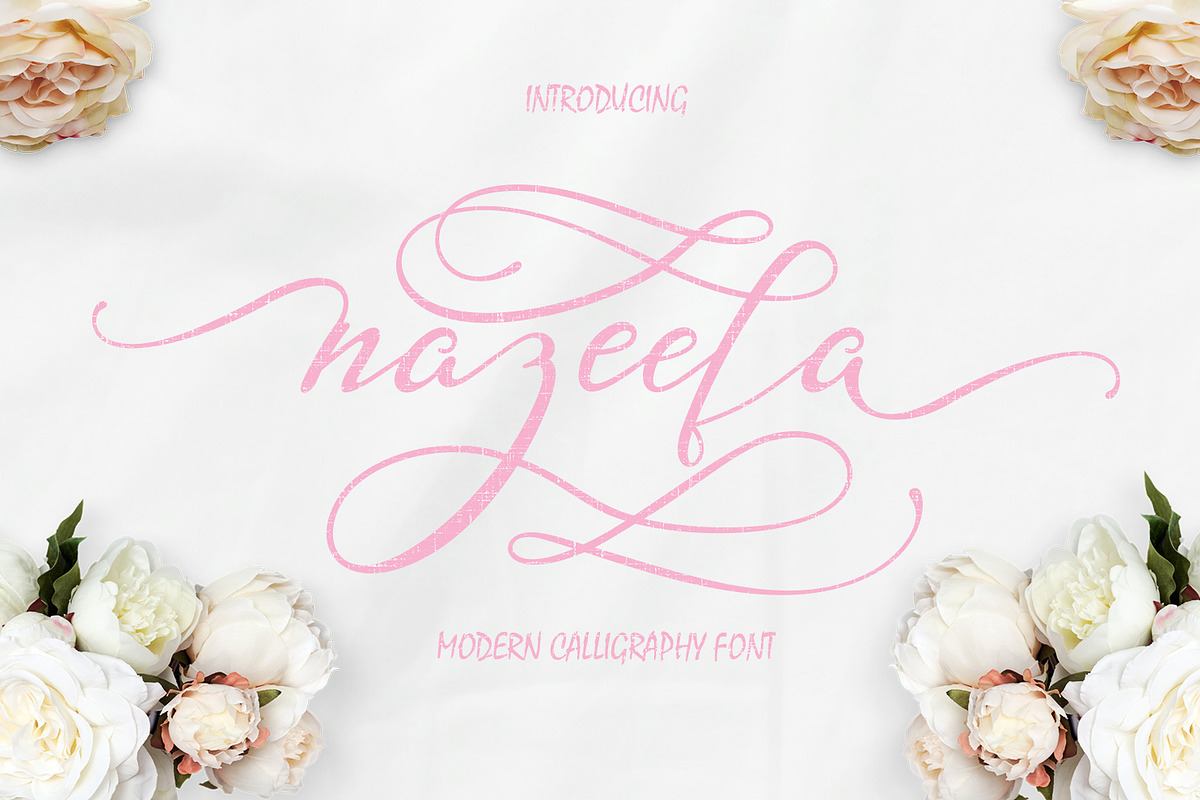
Nazeefa Script Font Free Download is a beautifully flowing handwritten script that blends elegance with a modern twist. Featuring smooth curves, graceful connections, and a natural rhythm, this font is perfect for wedding invitations, logos, personal branding, product packaging, and social media content that calls for a stylish, feminine touch.
Nazeefa Script Font Free Download is loved for its romantic charm and versatile character. It works wonderfully for both headlines and signature-style accents, giving your designs a polished, handcrafted look. Whether you're working on a chic brand or a heartfelt message, Nazeefa adds beauty and sophistication to every word.